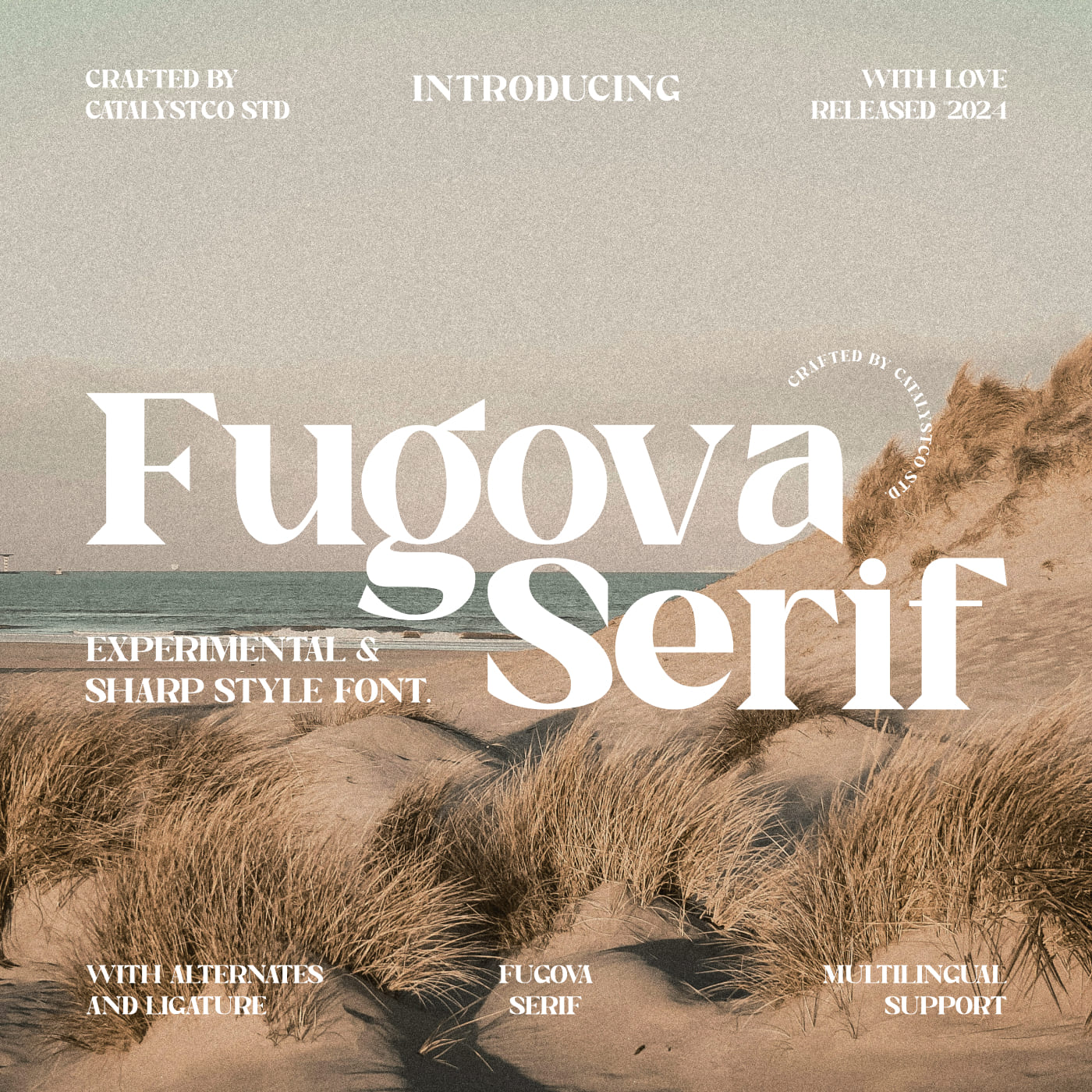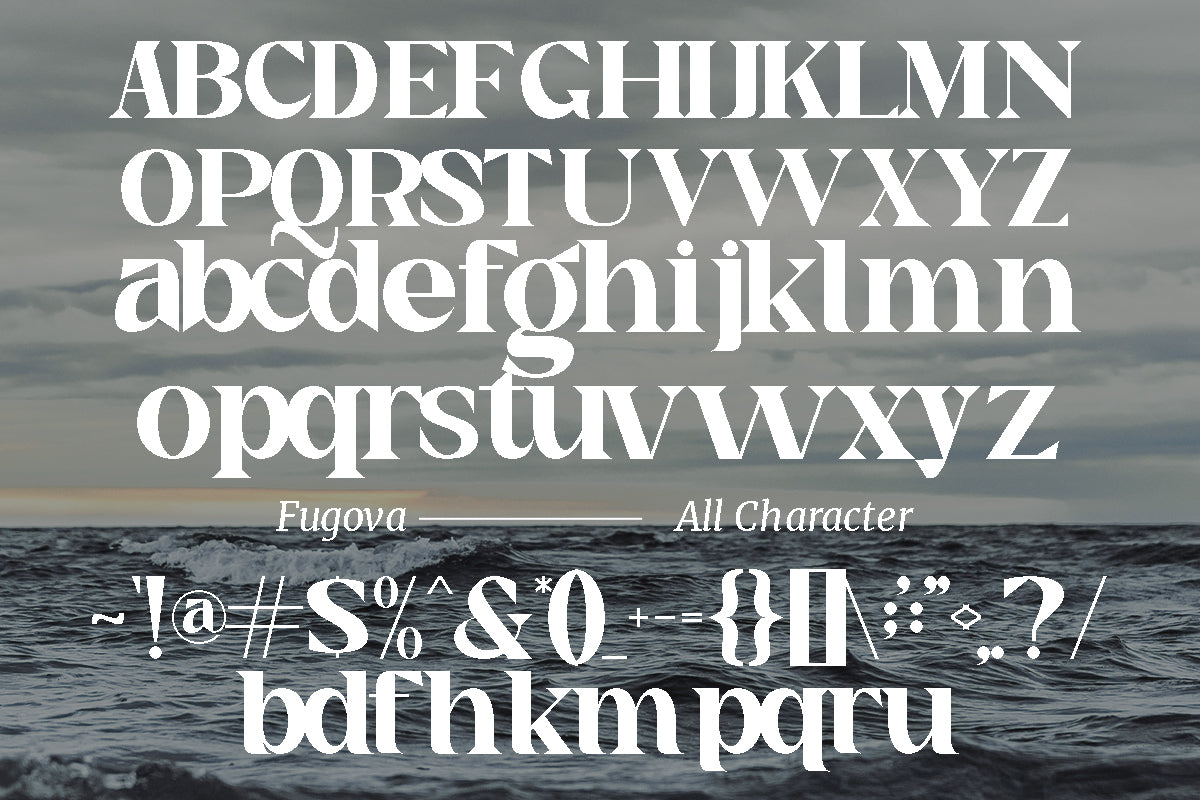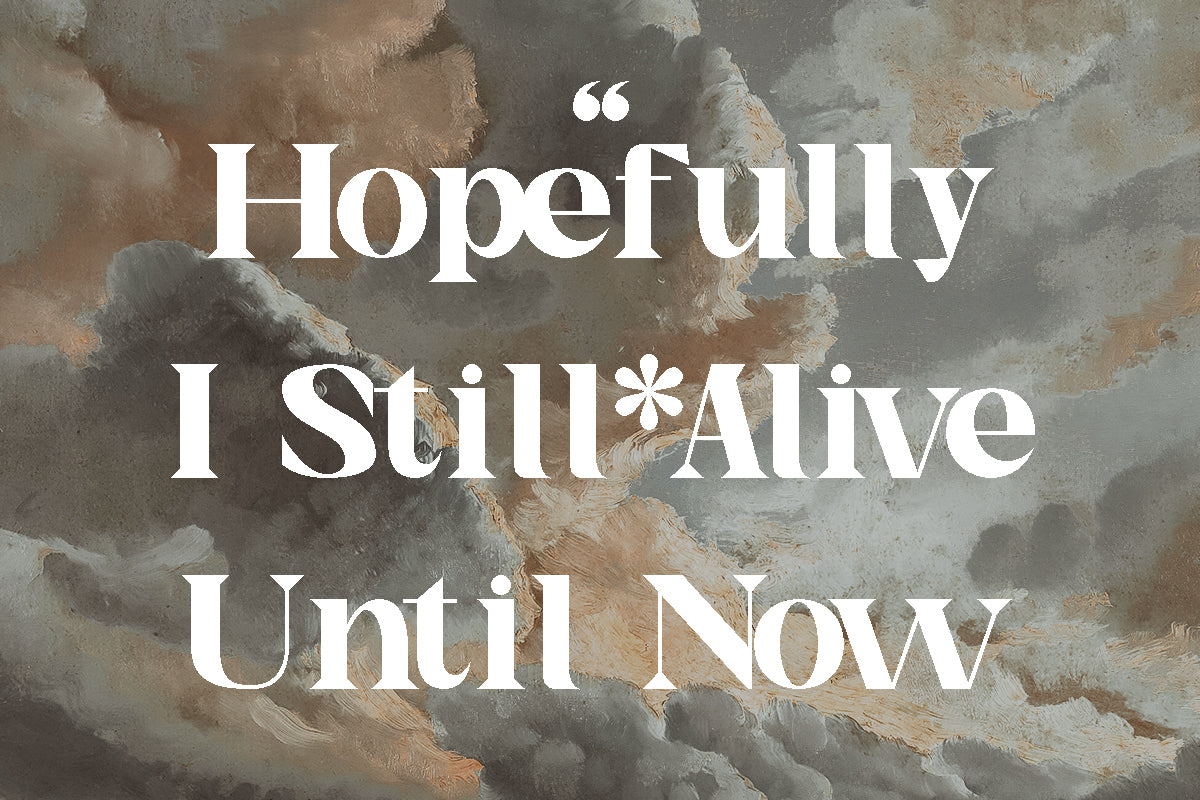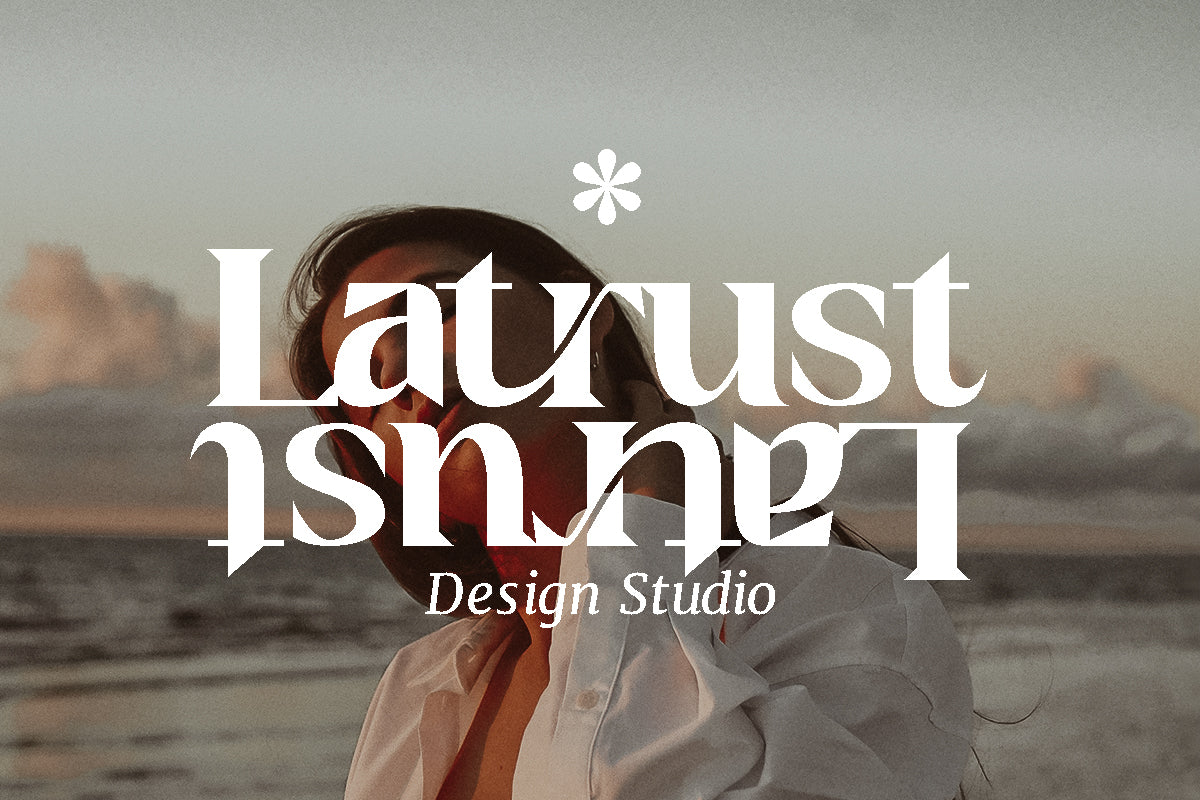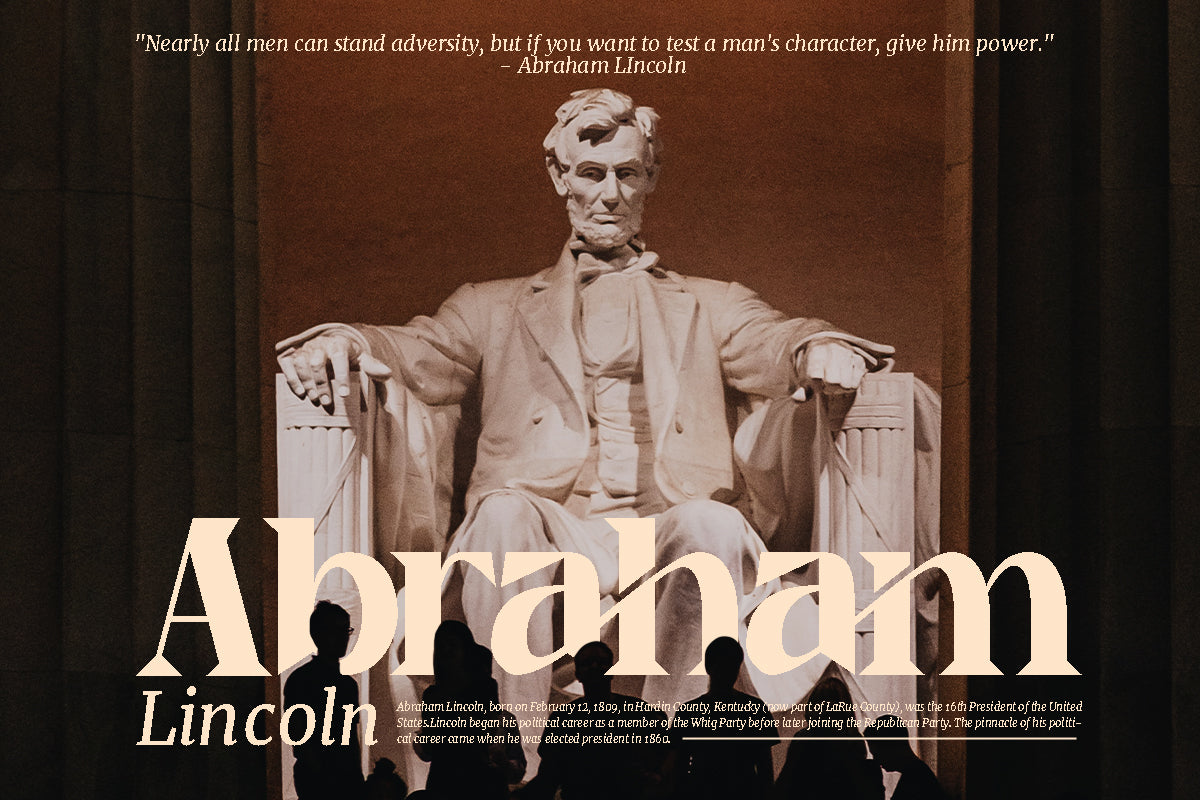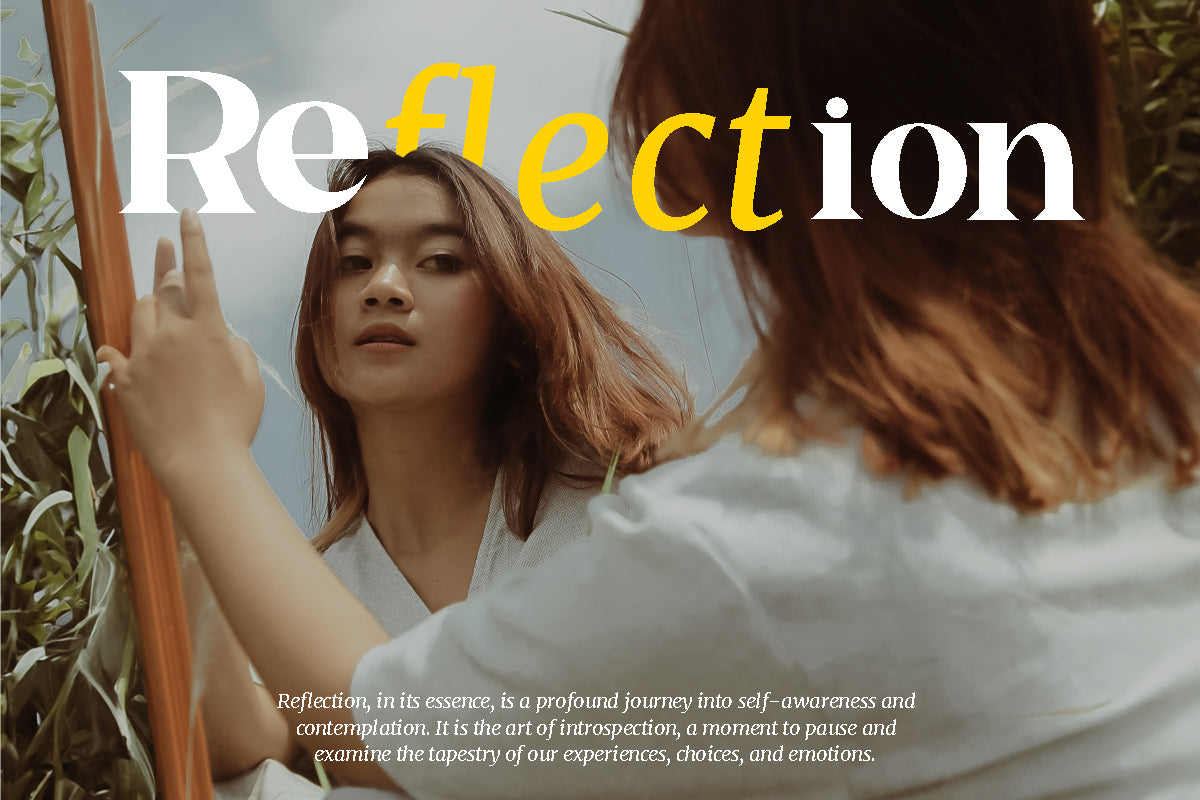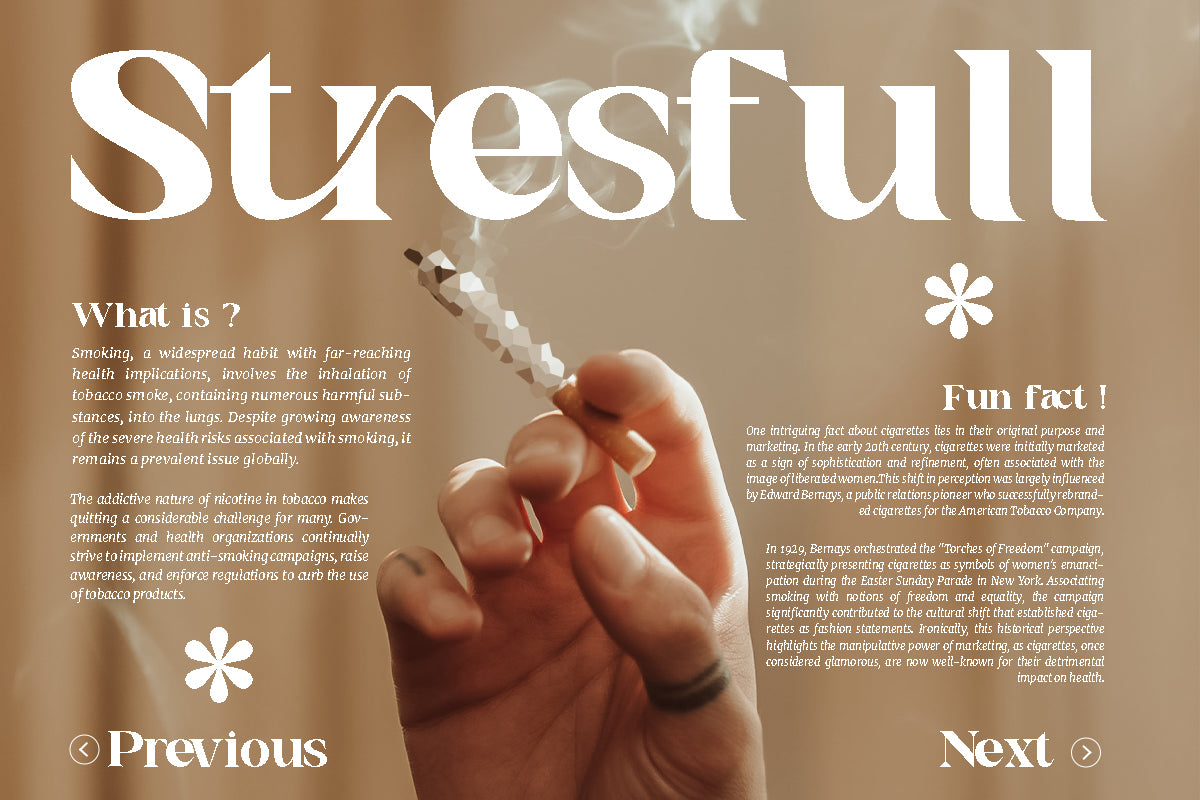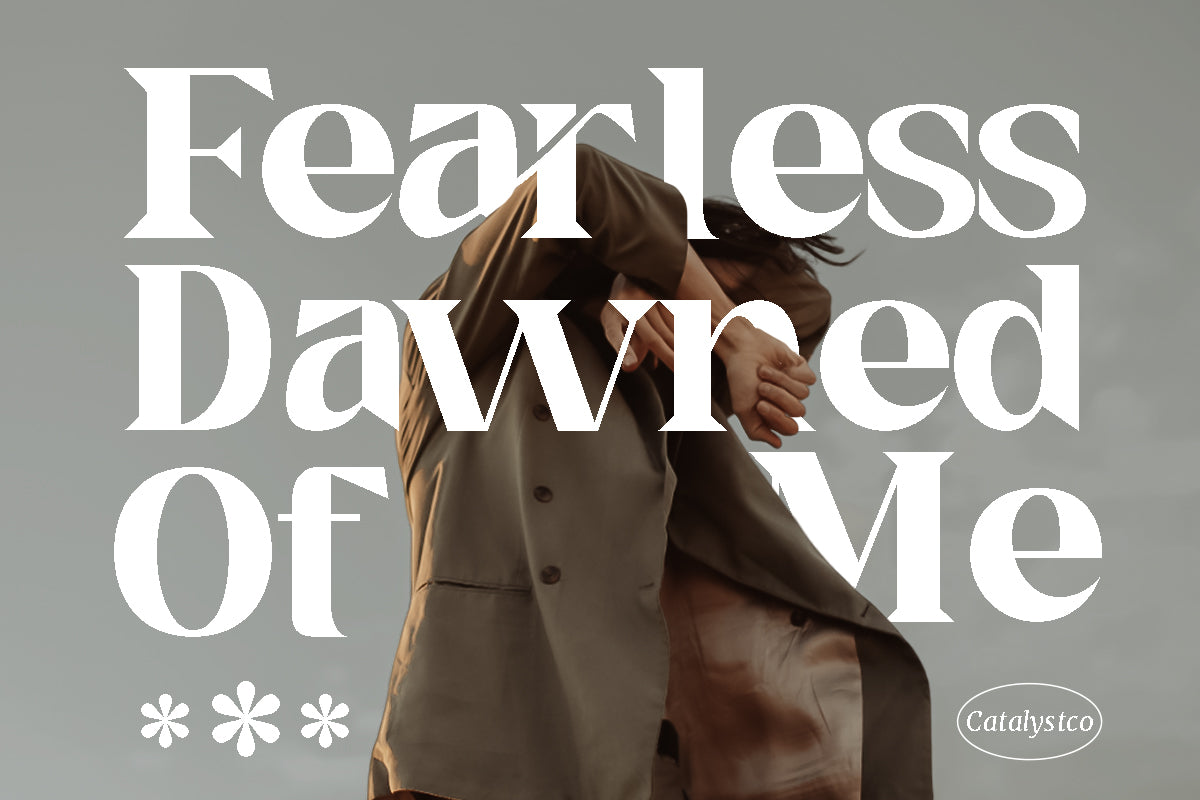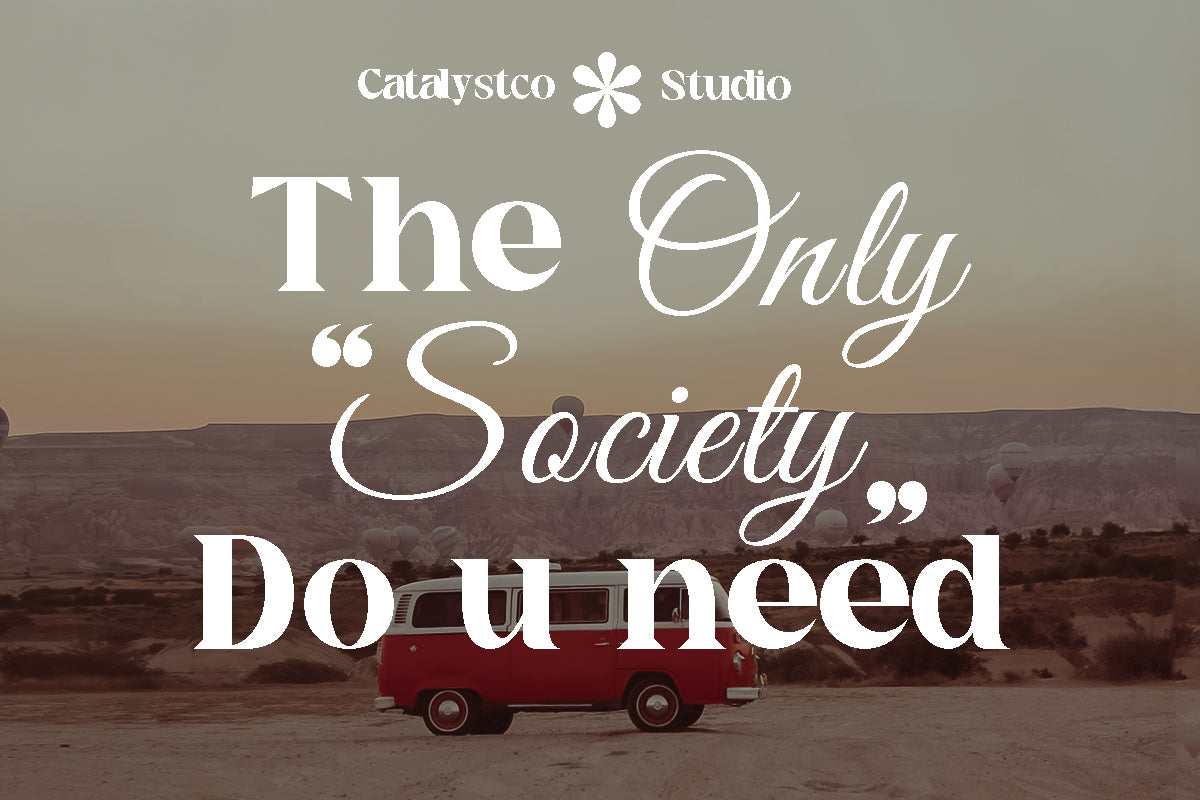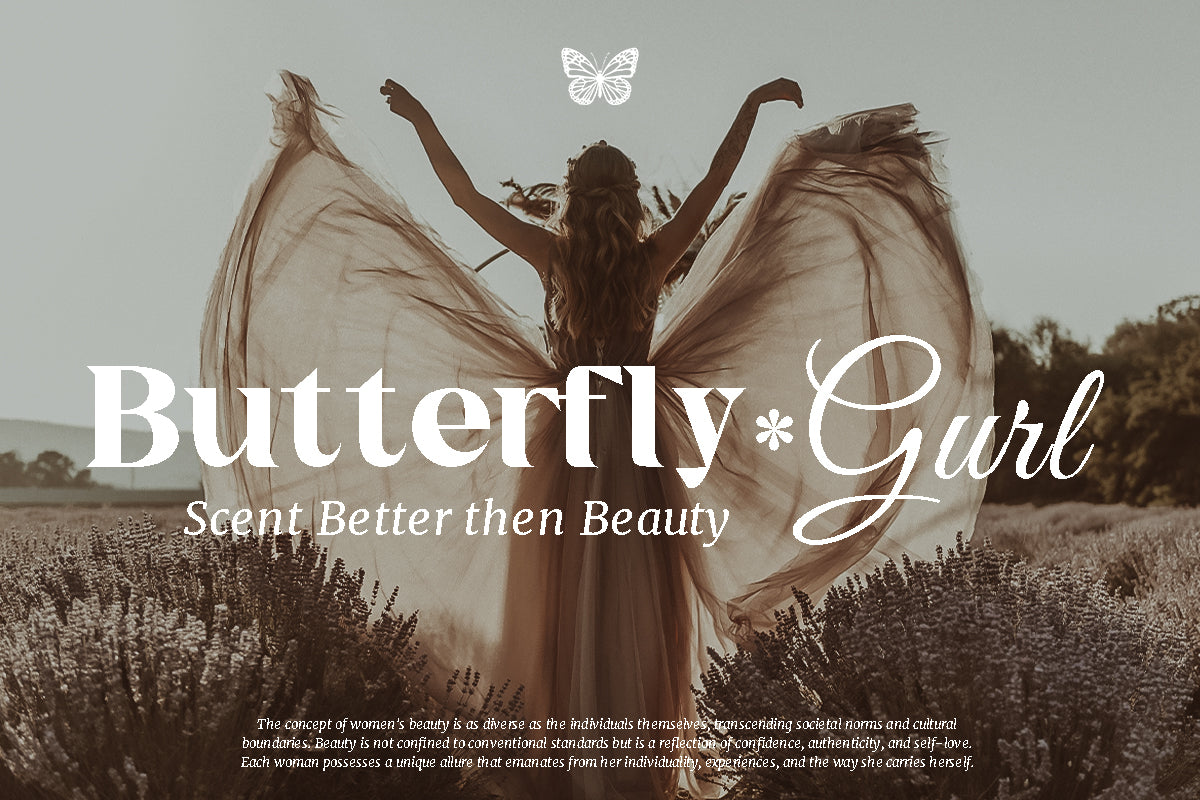
Fugova Serif Sharp Style Font
Fugova Serif is a modern high-contrast serif typeface featuring sharp angles, refined curves, and expressive editorial style. Its experimental cuts and condensed proportions create a bold visual personality that blends luxury, sophistication, and retro-inspired charm. Equipped with stylistic alternates and unique ligature constructions, this font brings a distinctive presence to every design it touches. Perfect for premium branding projects, magazine headlines, wedding invitations, fashion promotions, elegant posters, and creative layouts. Fugova Serif offers strong typographic impact with a balance of artistic detail and contemporary elegance, making it ideal for designers who need a stylish and professional serif display.
• Uppercase
• Lowercase
Fugova Serif Sharp Style is a high-contrast serif typeface with sharp angles, condensed proportions, stylistic alternates, and ligature constructions. It includes uppercase and lowercase letters, numerals, and punctuation, available in TTF, OTF, and WOFF formats.